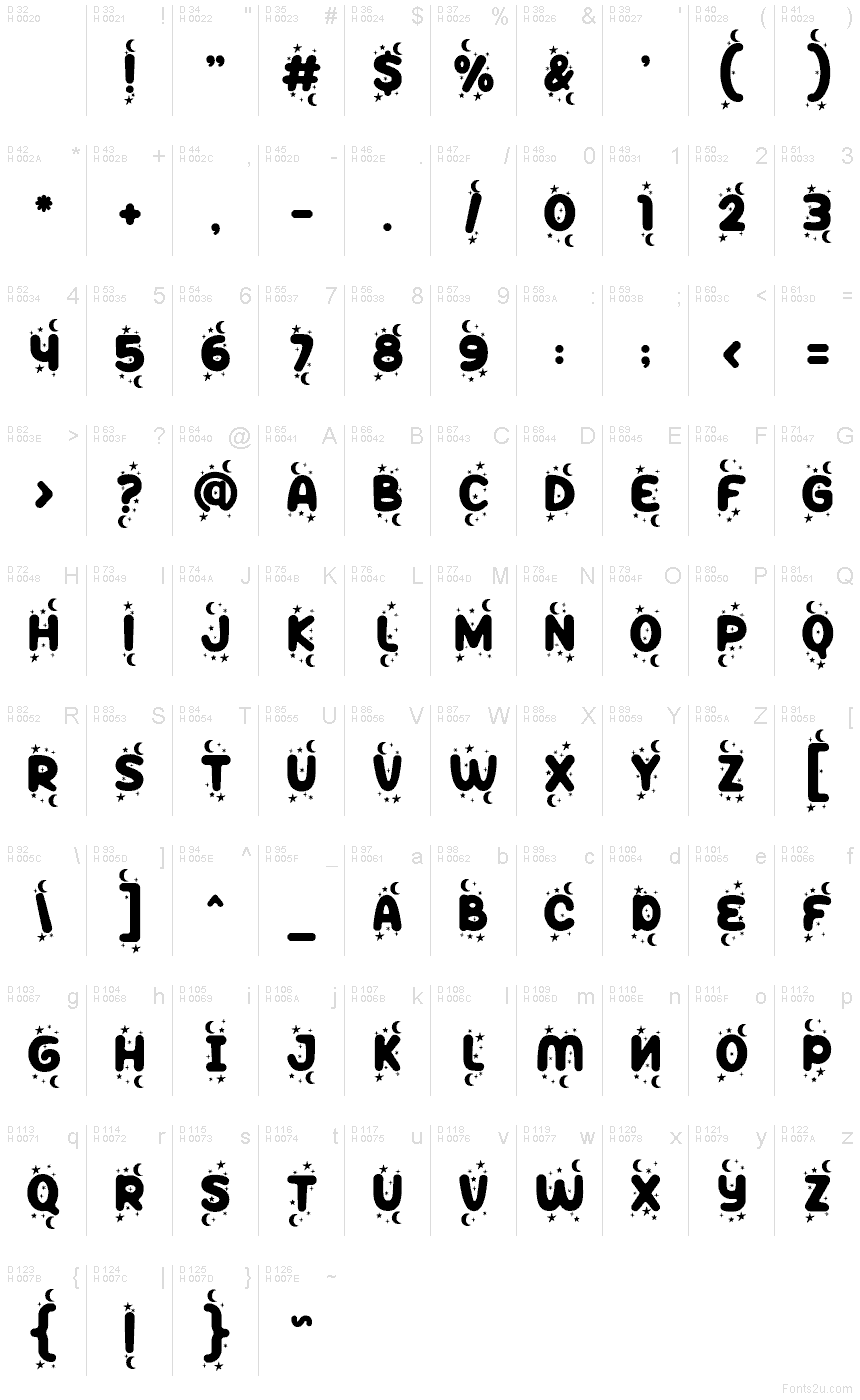
Peppy Pegasus Moon Star
Peppy Pegasus Moon Star font by PutraCetol Studio is a display free font full of a magical playfulness. The typeface carries a childlike appeal through its bubble-like decorative form and its round and whimsical edges. This playful atmosphere is further heightened with the retro style influence brought to letters and symbols.
The bold style of this font makes it great for both large and small attention-seeking application. As such, try it within movie titles, post headings, packaging designs, title sequences, book covers, advertisements or social media graphics.